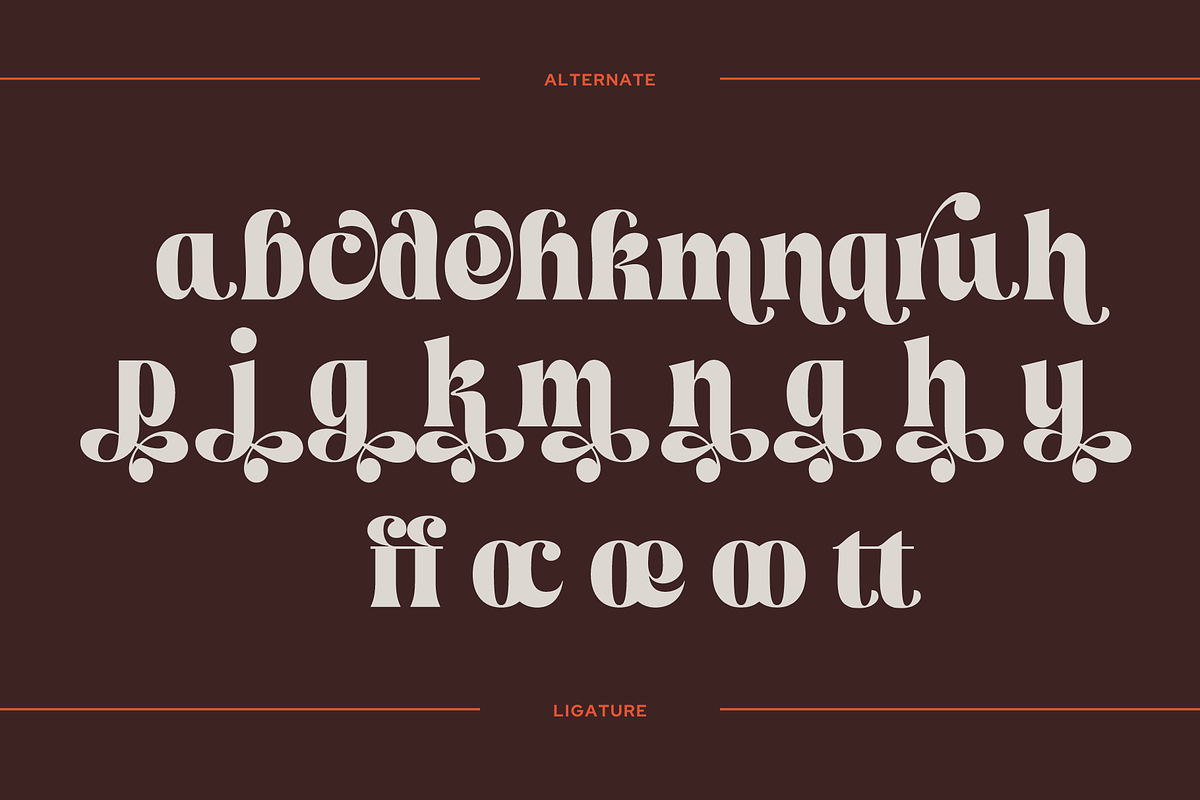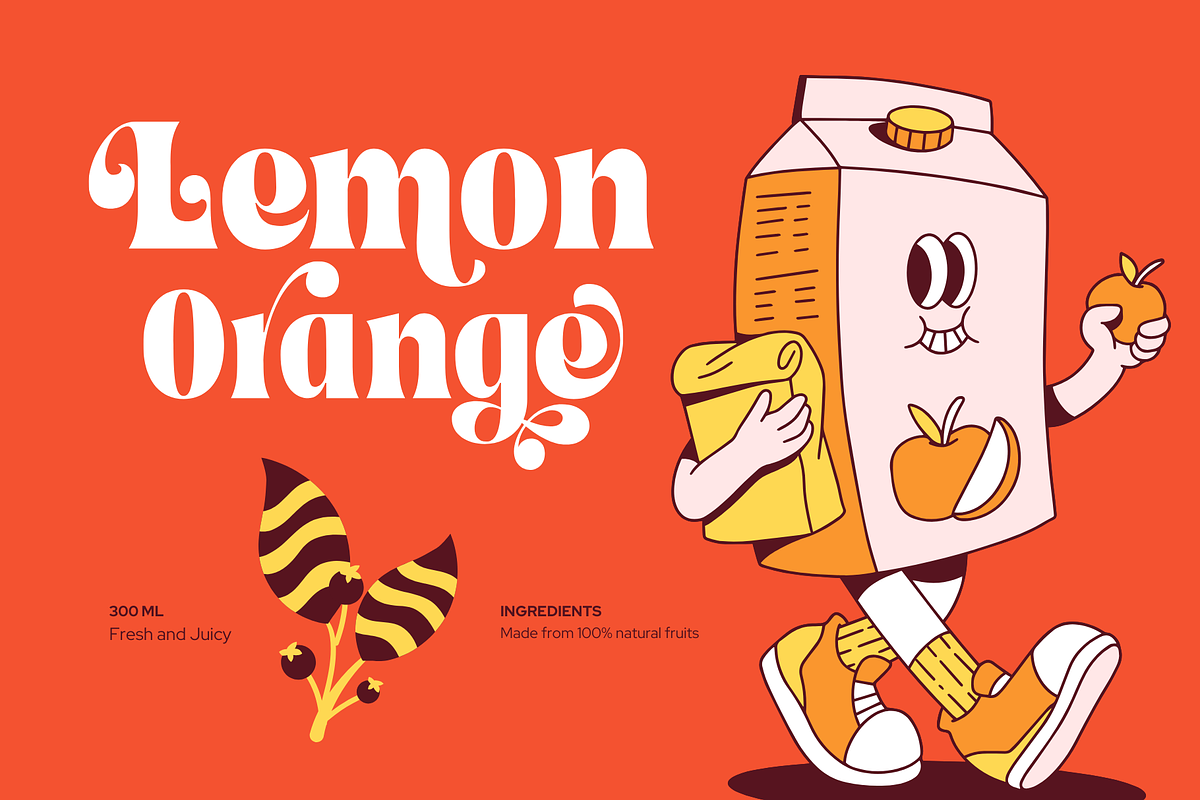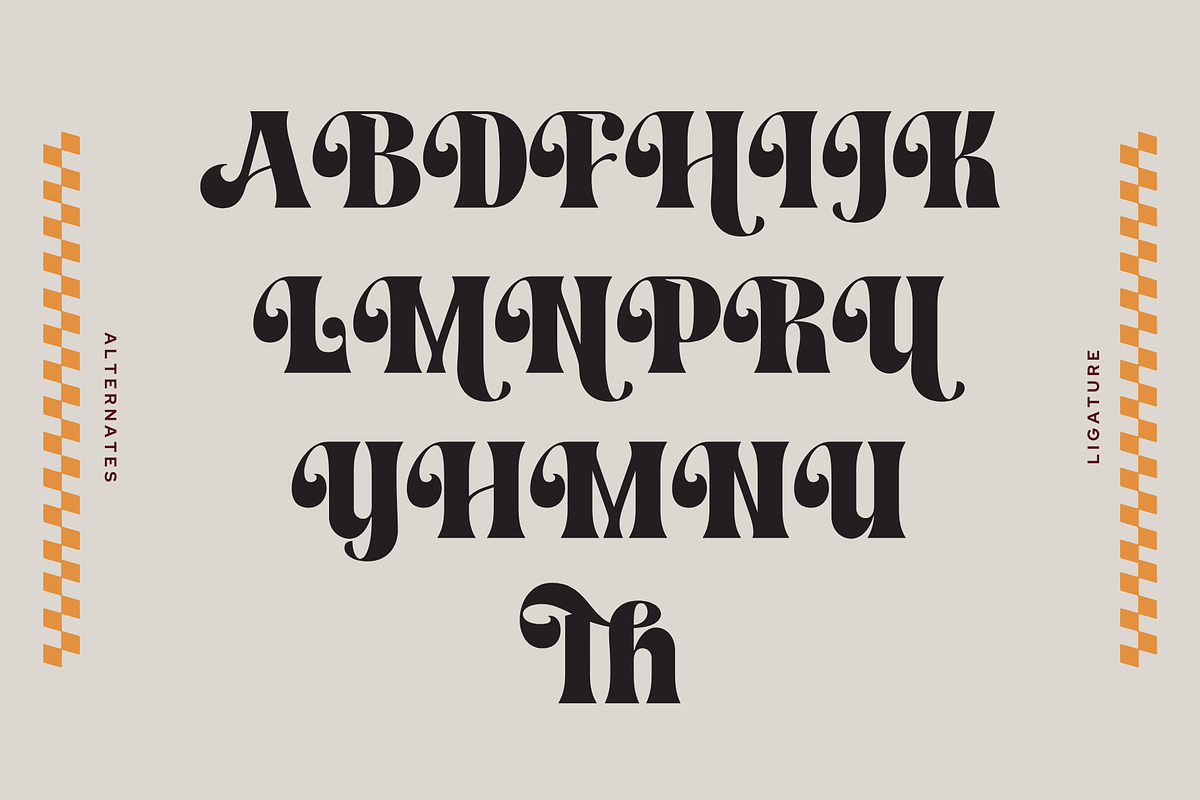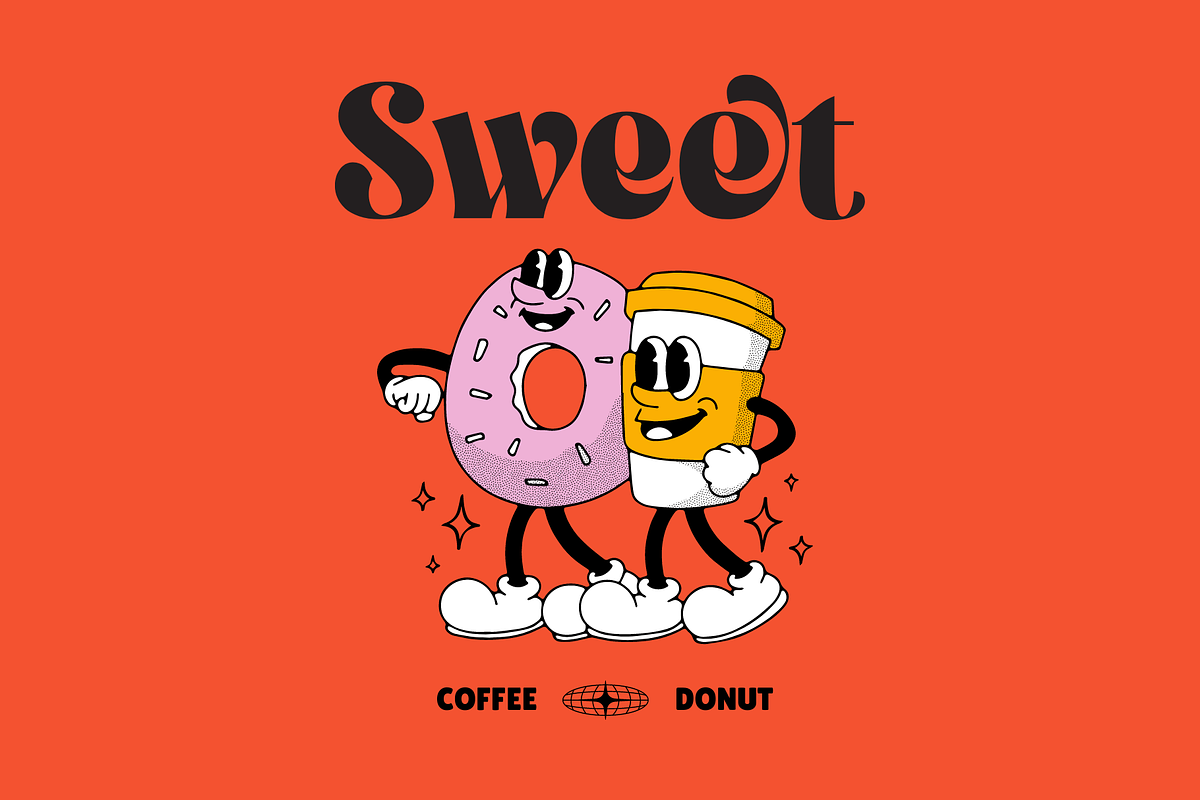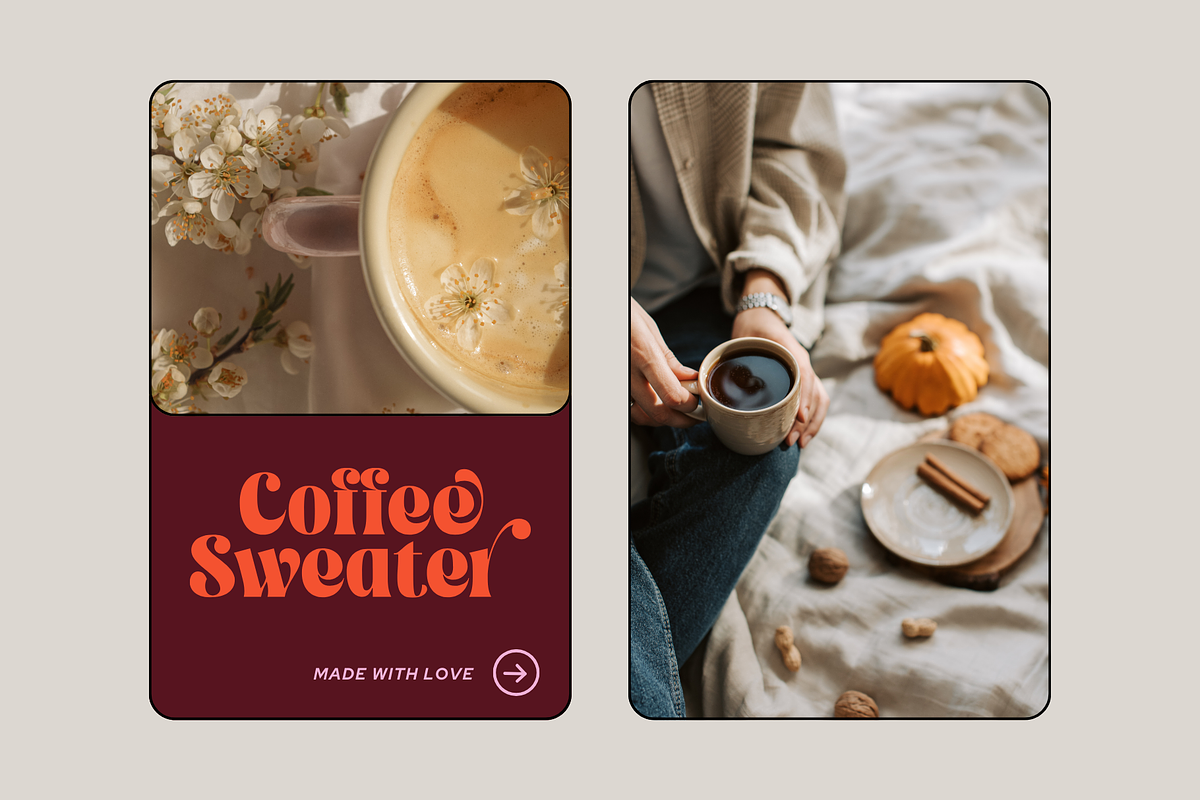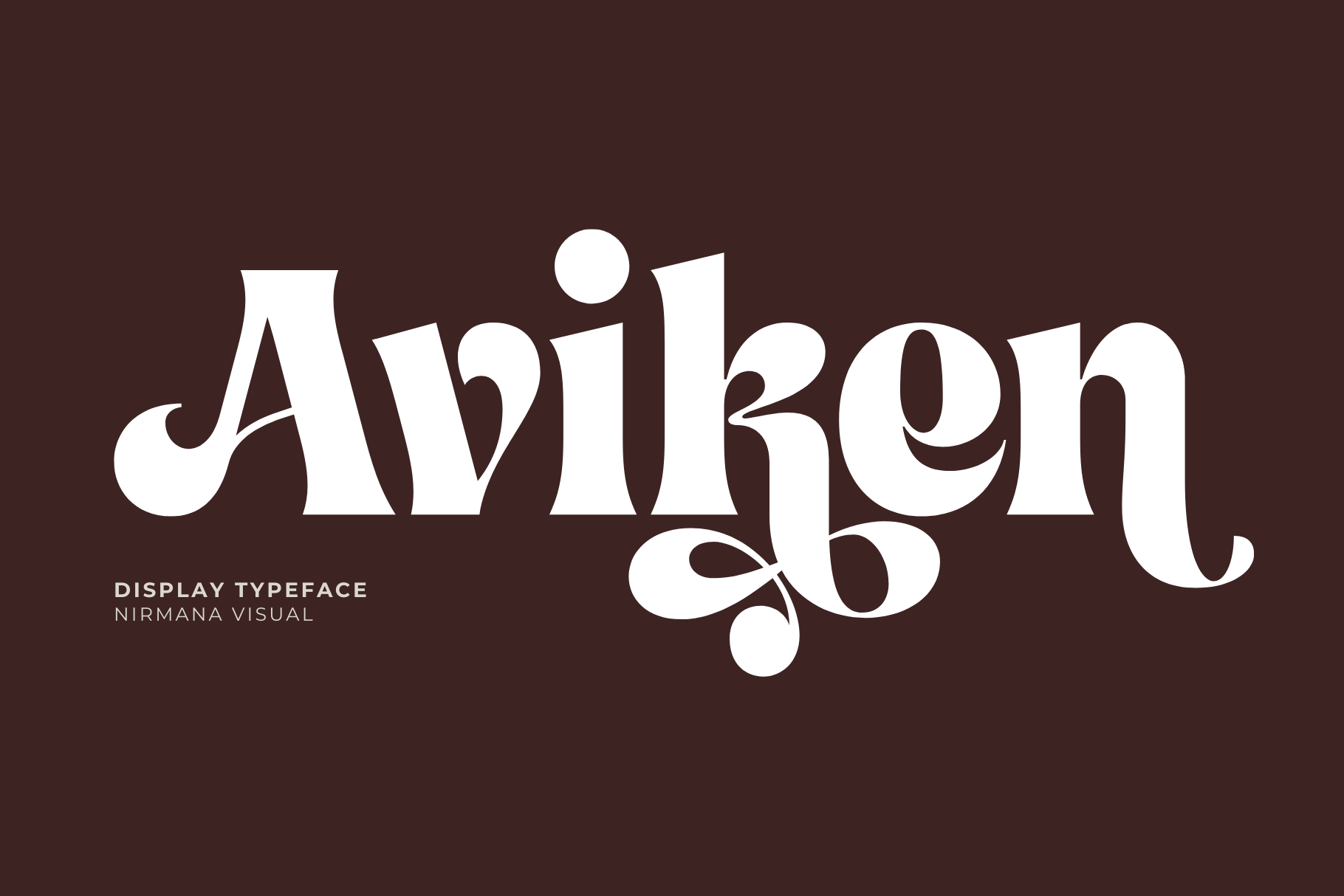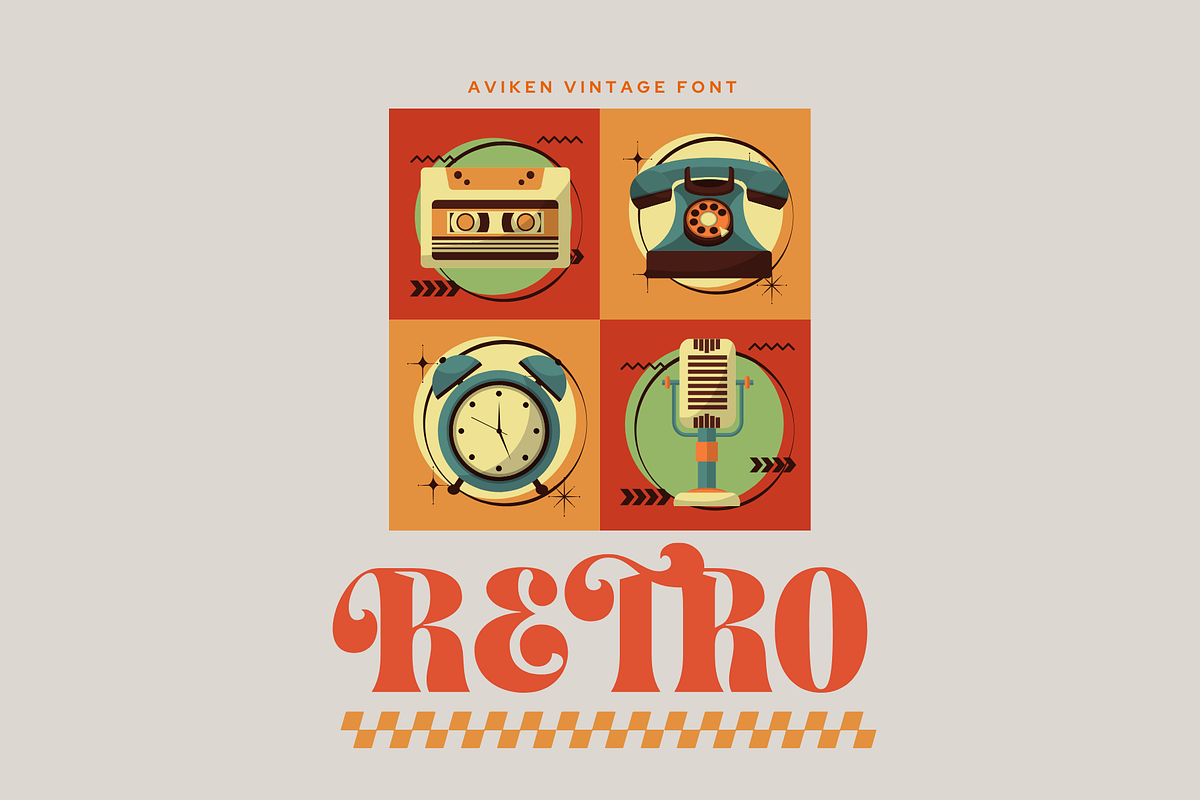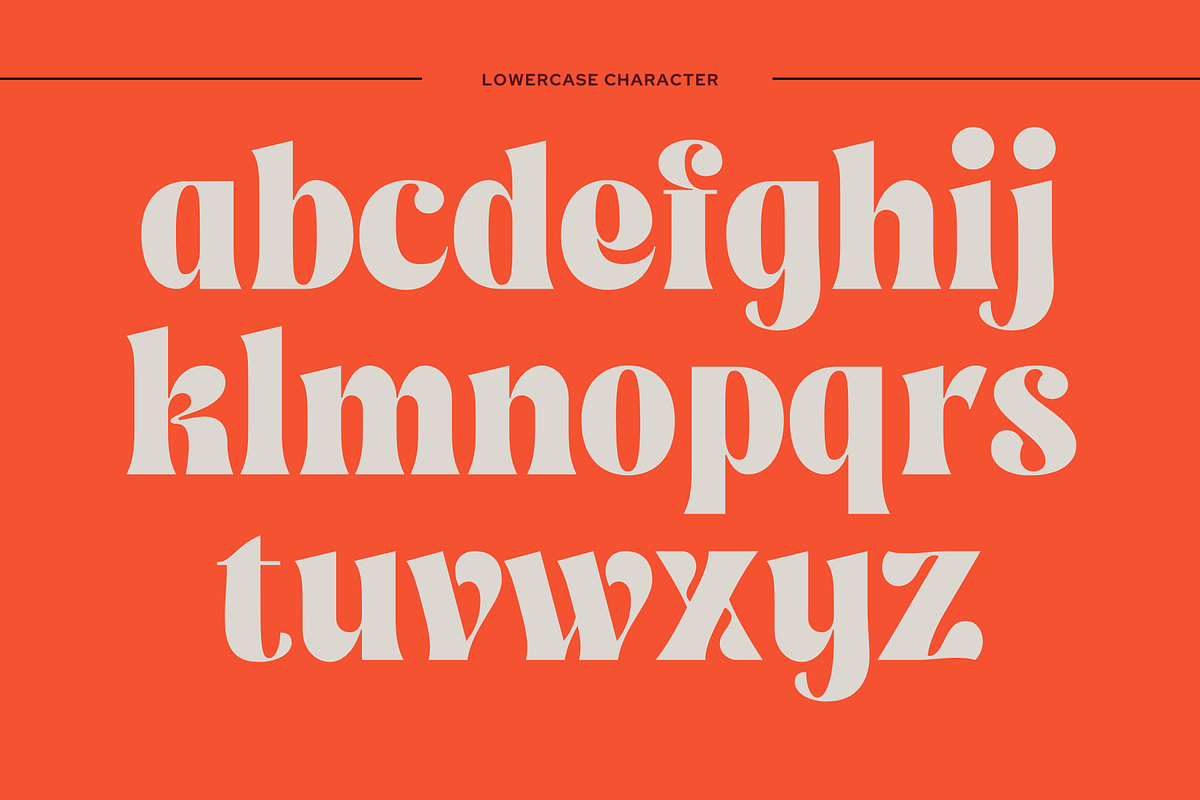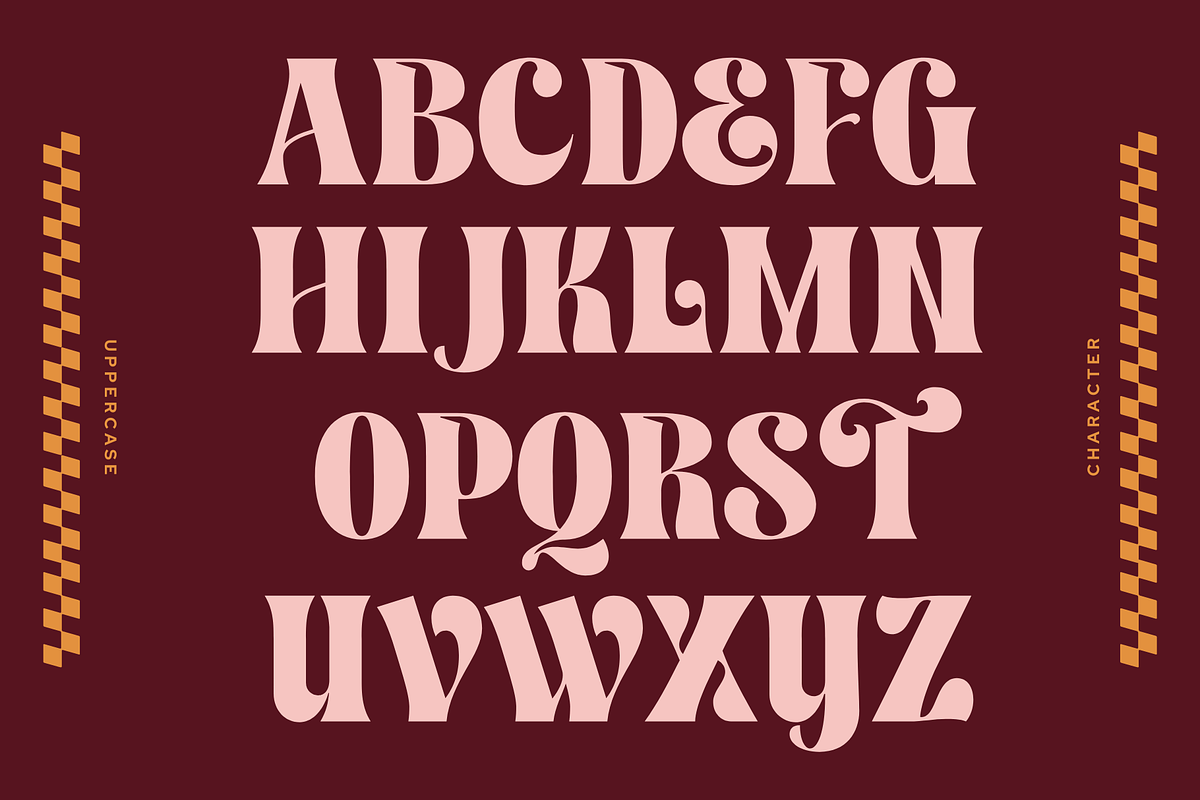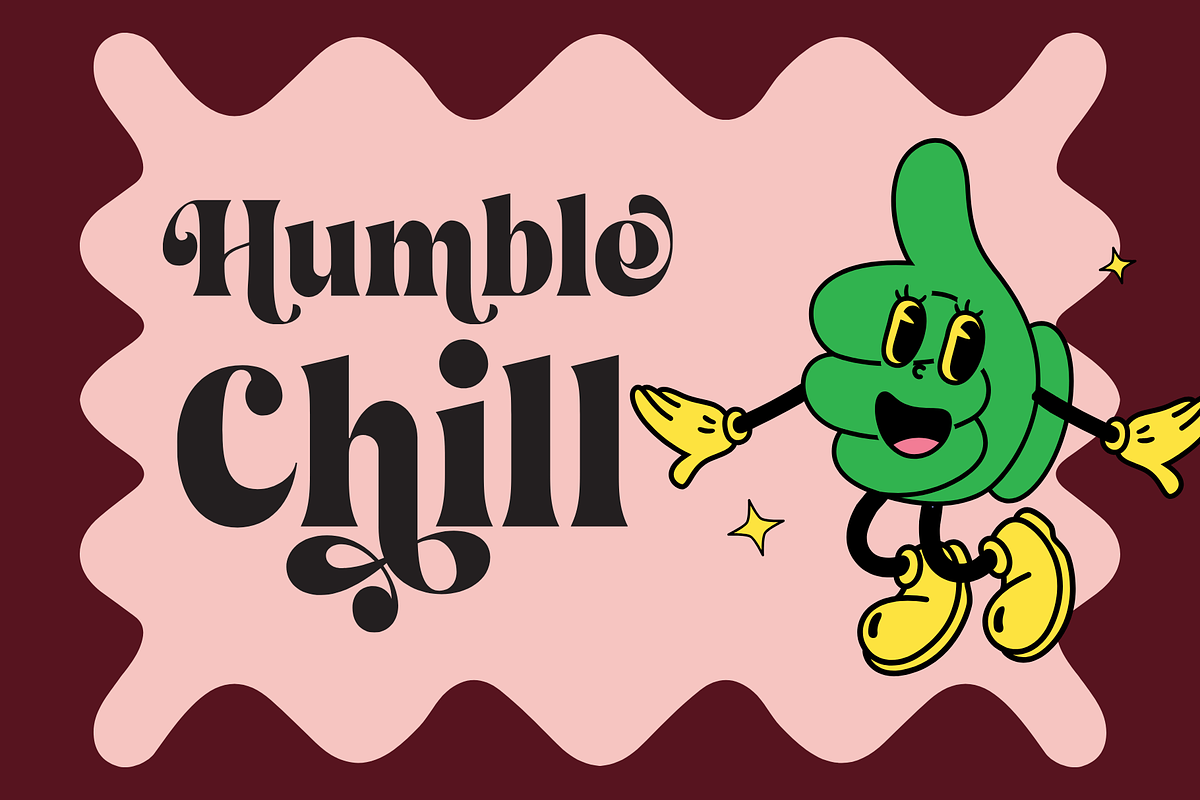
Aviken Retro - Vintage Logo Font
Aviken Retro Font offers beautiful typographic harmony for a diversity of design projects, including logos & branding, social media posts, advertisements & product designs.